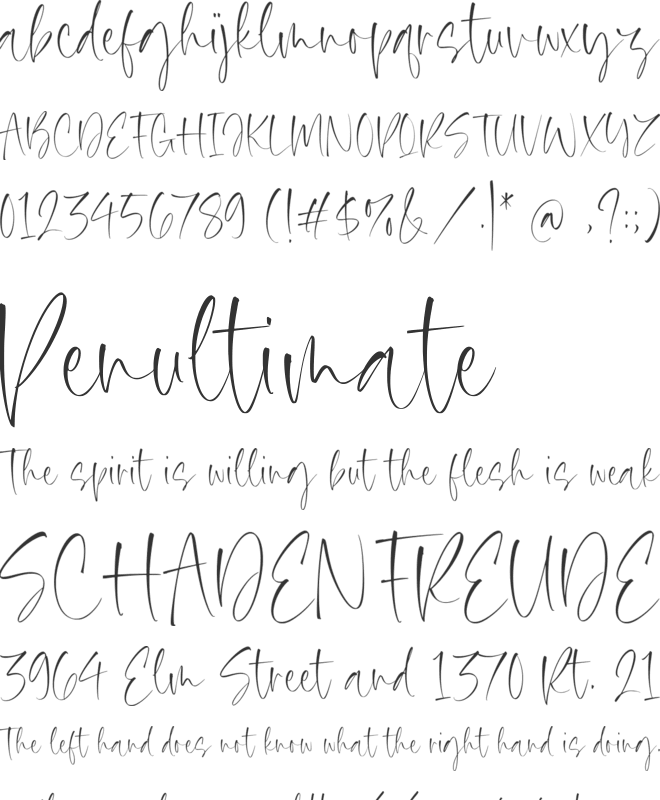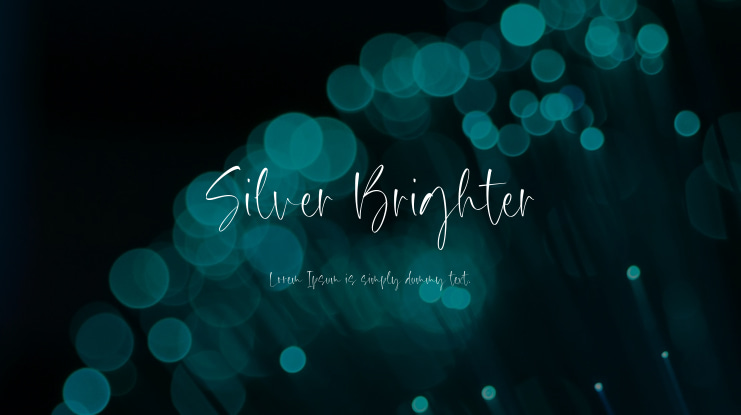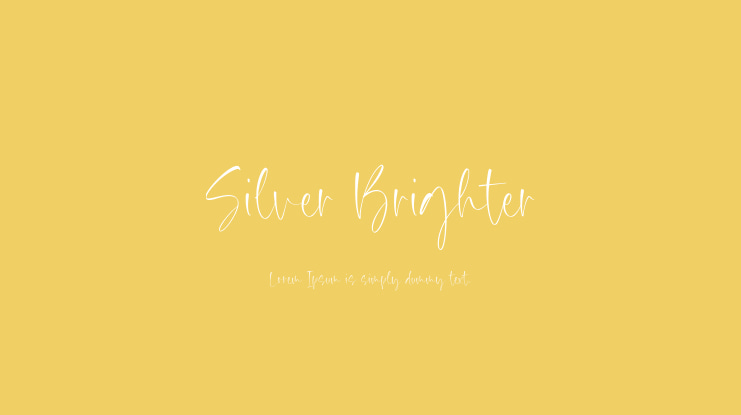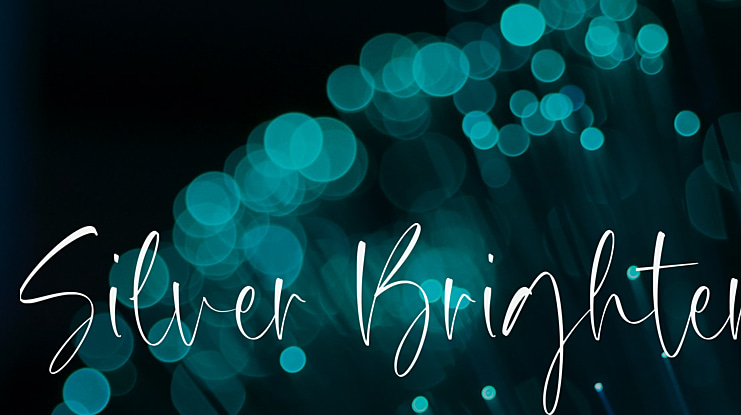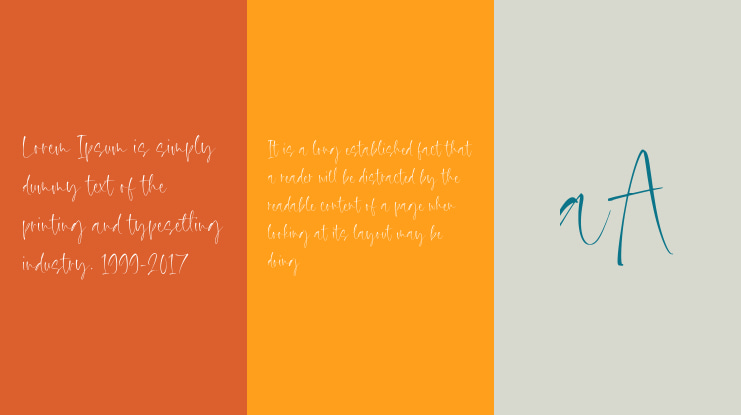
Silver Brighter Font
The Silver Brighter Handwritten Font is a modern and fresh script font that will add warmth and charm to your business. It is perfect for various applications such as product packaging, branding projects, magazines, social media, weddings, and more. With its elegant design, it can enhance any text placed on different backgrounds.
Key features of the Silver Brighter Font include:
• Full set of standard alphabet and punctuation
• Support for multiple languages